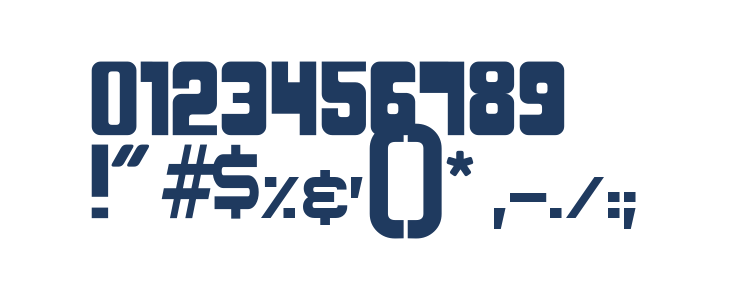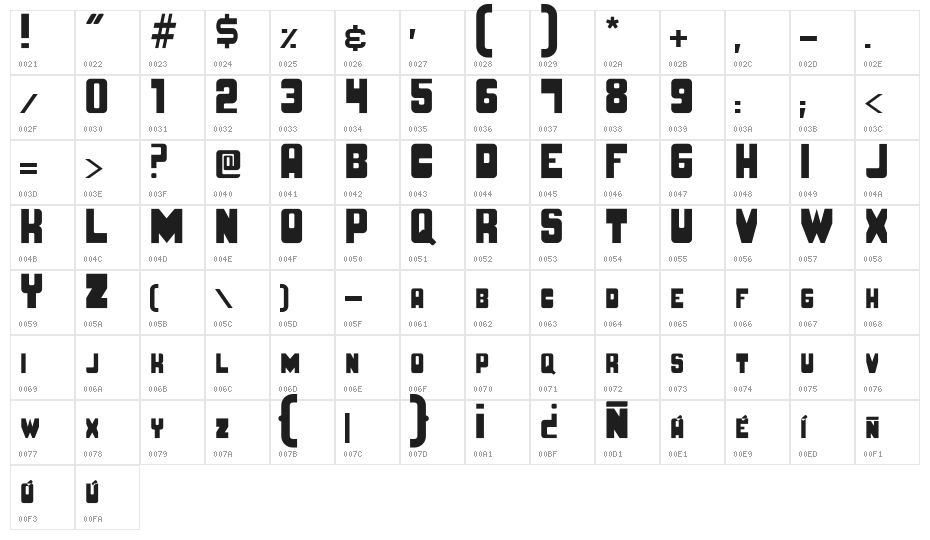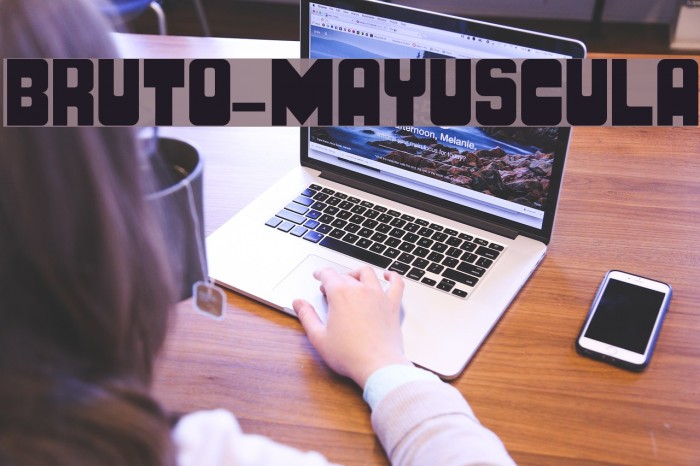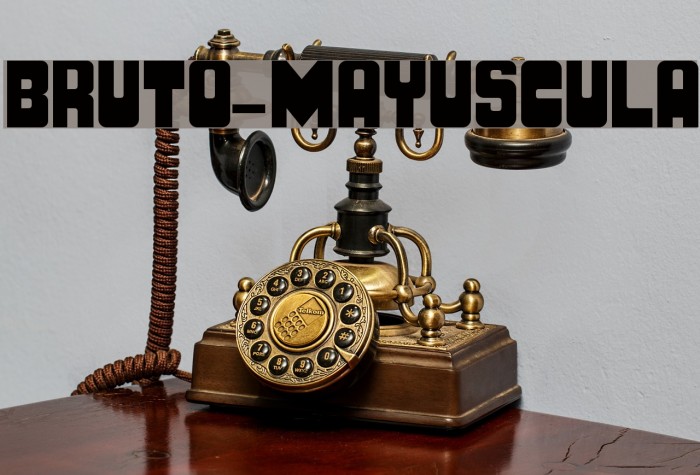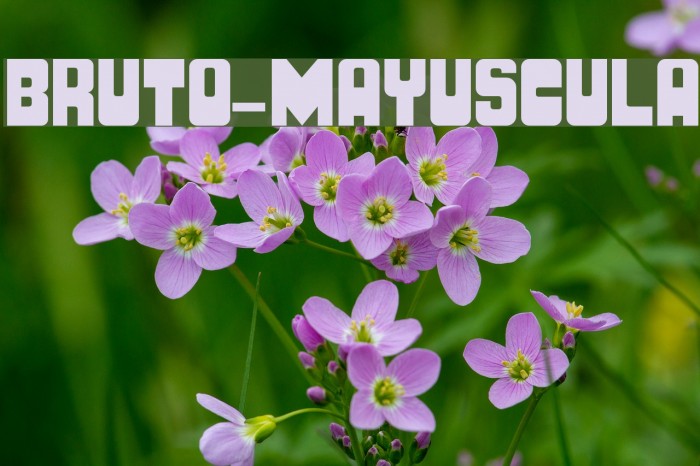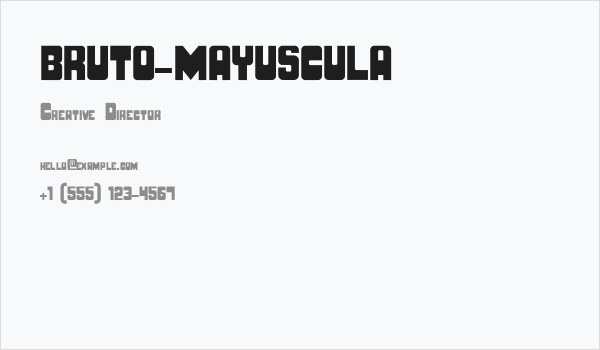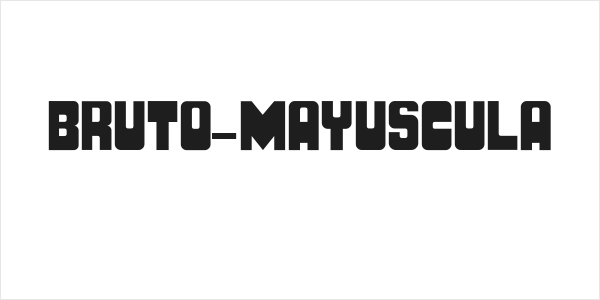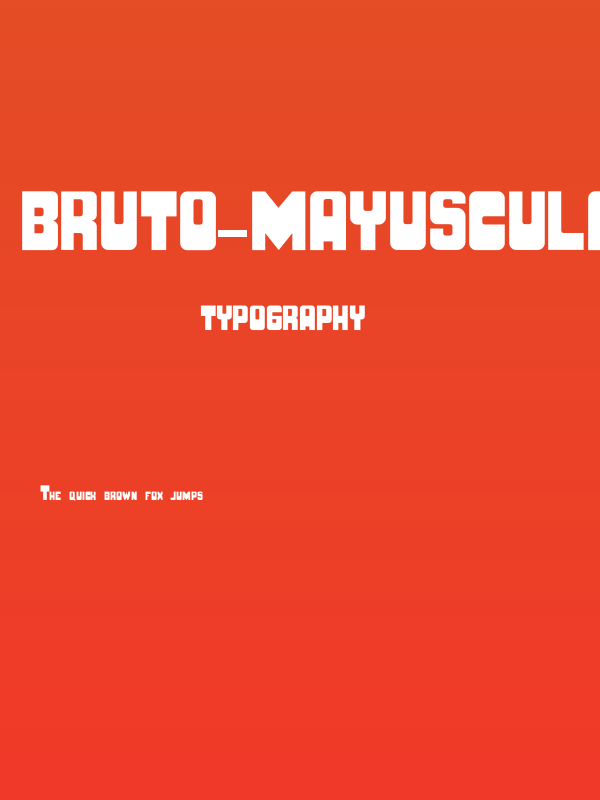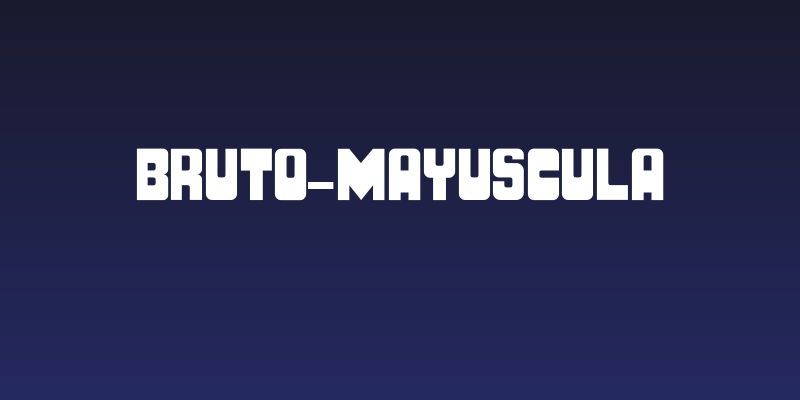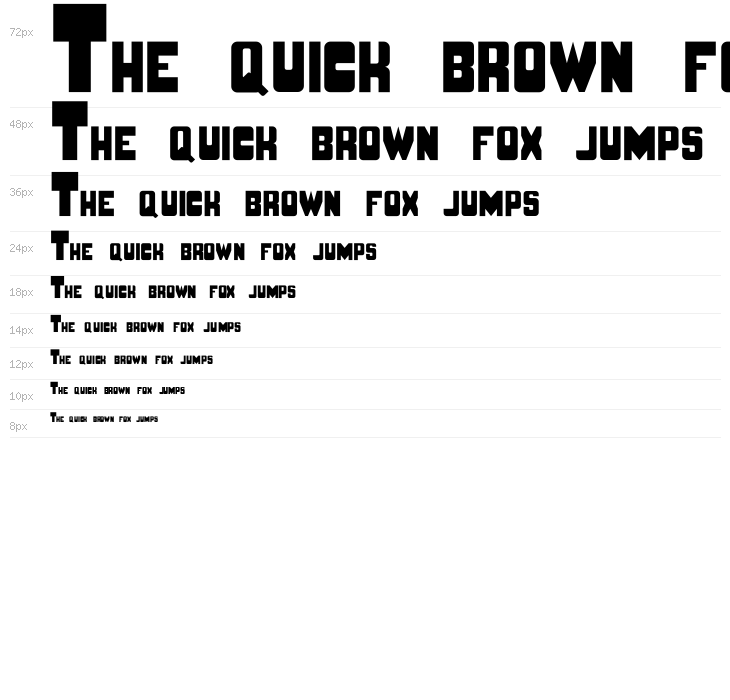
BRUTO-MAYUSCULA Font
BRUTO-MAYUSCULA Description
This font features a bold and impactful design with thick, blocky characters that convey strength and assertiveness. The uppercase letters are uniform in height, creating a cohesive and structured appearance. The numbers and special characters maintain the same bold style, ensuring consistency across all elements. The font's geometric shapes and solid lines give it a modern and industrial feel, making it suitable for attention-grabbing headlines and branding materials. Its strong presence and clear readability make it ideal for projects that require a commanding visual impact.
Proposed ProjectsIdeal for branding, posters, headlines, and any design requiring a bold statement.